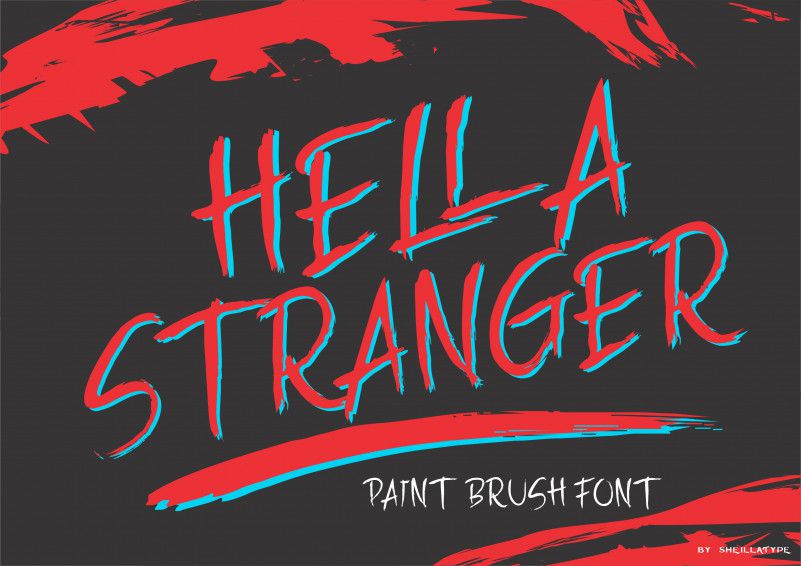
HELLA STRANGER Brush Font
HELLA STRANGER Brush Font was inspired by ancient paint brushes and horror comics,
This font can be used as a POSTER horor movie, metal band , logotype, card design, display text, headline, and can be used for various other design purposes. please download it and thank you for your appreciation.